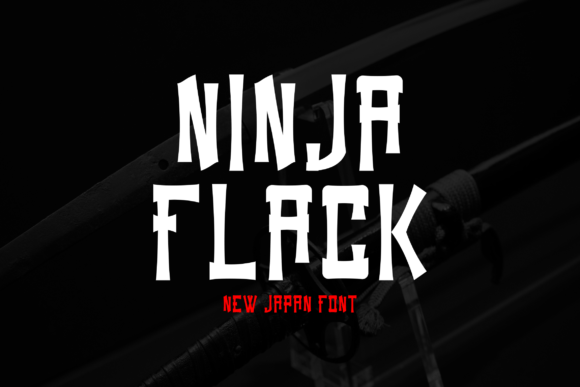
Dive into the world of captivating typography with Ninja Flack Font, the modern font that exudes boldness and authenticity. This display font is a masterpiece crafted by the talented kalingga.albert, specifically designed to elevate any branding project to new heights.
Unleash your creativity and let Ninja Flack Font be your ally in crafting logos that demand attention, t-shirt designs that speak volumes, and esports branding that ignites passion. Its versatility extends to a multitude of contexts, ensuring that your designs leave a lasting impact.
Visualize the sleek lines and striking curves of Ninja Flack Font commanding attention on your website, captivating your audience with its inherent power. Its bold presence is guaranteed to make a statement, leaving an indelible mark on anyone who encounters it.
But Ninja Flack Font isn't just about aesthetics; it's also a font that oozes personality. Its unique character shines through in every letterform, giving your designs a distinct edge that sets them apart from the ordinary.
With Ninja Flack Font, you'll discover a world of possibilities, where your creativity knows no bounds. Let its bold strokes ignite your imagination and propel your designs to greatness.
Don't settle for mediocrity; embrace the extraordinary with Ninja Flack Font. Its modern aesthetic and captivating presence will transform your designs into works of art, leaving a lasting impression on all who behold them.
Step into the realm of typographic excellence with Ninja Flack Font. Its versatility and bold character will elevate your designs to new heights, ensuring that your message resonates with power and originality.